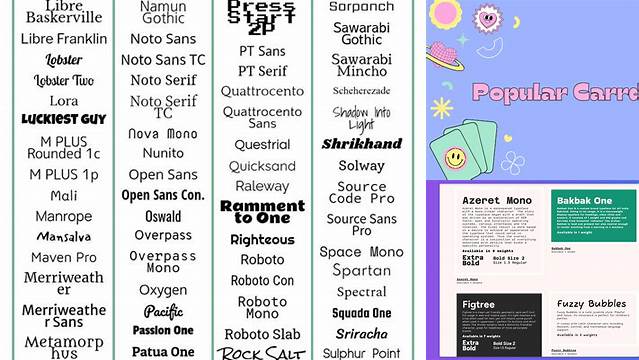
Awesome Fonts For Your Carrd Website
Hey there, web design enthusiasts! Are you looking to give your Carrd website a serious style upgrade? Then, you've come to the right place! Today, we're diving deep into the world of fonts for Carrd – the unsung heroes of web design. Choosing the right font can be the difference between a website that captivates and one that gets lost in the digital abyss. So, let's get started and explore some killer font options to make your Carrd site pop.
H2: Best Free Fonts for Carrd – A Curated List
Okay, guys, let's kick things off with some of the best free fonts you can use on your Carrd website! We all love a good deal, right? Especially when it comes to creating a stunning website without breaking the bank. When it comes to free fonts for Carrd, there are a ton of options out there, and they can be a bit overwhelming to sort through. That's why I've curated a list of my all-time favorites. These fonts are not only beautiful but also optimized for web use, meaning they'll load quickly and look great on any device. Finding the perfect fonts for Carrd doesn't have to be difficult. So let's begin.
First up, we have Roboto. It is known for its clean and modern appearance, which is a versatile sans-serif font that works well for body text, headings, and everything in between. It is easily readable, making it a great choice for websites with a lot of content. Then, there's Open Sans. This is another popular choice. Open Sans is a friendly and open-looking sans-serif font, perfect for creating a welcoming vibe. It's highly readable at various sizes, which is perfect for mobile devices. Then, let's introduce Lato. Lato is a bit more stylish than Roboto or Open Sans, with rounded corners and a touch of personality. It's still very readable, making it an excellent choice for headings and short paragraphs. Another great option is Montserrat. It's a geometric sans-serif font that is inspired by the architecture of the Montserrat neighborhood in Buenos Aires. It is a solid font to use for headers, especially. Last but not least, consider Poppins. It's a geometric sans-serif font with a touch of modern flair. It's known for its clean lines and readability. These are all great options for your website.
When you're choosing a font, it's essential to consider your brand's personality and the overall aesthetic you want to achieve. Do you want a clean, minimalist look, or something more playful and energetic? Once you know your desired style, you can narrow down your choices. Also, think about the font's legibility. No matter how beautiful a font is, it won't do you any good if your website visitors can't read it! Remember to test your font choices on different devices and screen sizes to ensure they look great everywhere.
H3: Where to Find Free Fonts for Your Carrd Site
H2: Premium Fonts for Carrd – Elevate Your Design
Alright, so you've explored some free fonts for Carrd and you are ready to take your website to the next level? Then, you might want to consider investing in premium fonts. While free fonts are great, they often have limitations. Premium fonts can offer a wider range of styles, weights, and features, allowing you to create a more unique and professional website. Premium fonts can significantly elevate your design, providing you with more options and control over your website's look and feel. But before you run off to buy some fonts, what are the best premium options? There are several popular platforms where you can purchase premium fonts. My personal favorite is Adobe Fonts (formerly Typekit). Adobe Fonts offers a vast library of high-quality fonts, including options from some of the world's top designers. The fonts are all well-designed and optimized for web use, ensuring your website looks great on any device. You can also filter fonts by various criteria, such as style, weight, and language, so it's easy to find the perfect fonts for your needs.
H3: How to Choose the Right Premium Font for Your Carrd Site
Now, let's explore how to choose the right premium fonts for Carrd. Consider the following: First, your brand's identity. What is the personality of your brand? Is it serious and professional, or fun and playful? Choose a font that reflects your brand's identity. Second, your website's purpose. What is the main goal of your website? Are you selling products, sharing information, or building a community? Choose a font that complements your website's purpose. Third, your target audience. Who are you trying to reach with your website? Choose a font that appeals to your target audience. Next, the font's readability. This is critical, especially for body text. Choose a font that is easy to read at different sizes and on different devices. Make sure the font has enough weights and styles. The wider the range of weights and styles, the more flexibility you have. For instance, does it offer the italic, bold, and different weights you may need for headers and body text? Then, make sure the font complements your other design elements. Your font should work well with your website's colors, images, and layout.
H2: Carrd Font Pairing – Perfect Combinations
So, you have explored the fonts for Carrd and are ready to use them. But how do you combine them for the best results? Using different fonts on your Carrd website can add visual interest and personality. However, using too many fonts can make your website look cluttered and unprofessional. Finding the perfect fonts for Carrd pairing can be a bit tricky. That's why I want to share some of my favorite font pairings.
One of the most popular pairings is Roboto and Open Sans. This is a classic combination that works well for any type of website. The Roboto is a versatile sans-serif font that is ideal for body text. Open Sans, on the other hand, is a friendly and open-looking sans-serif font that works well for headings. Another great combination is Lato and Montserrat. Lato is a stylish sans-serif font with a touch of personality that works well for headers and short paragraphs. Then, use Montserrat, which is a geometric sans-serif font, for headings. It is a clean and modern combination that is perfect for a wide range of websites. Then, we have Poppins and Playfair Display. Poppins is a geometric sans-serif font. It is a perfect choice for headers. Playfair Display is a high-contrast serif font that works well for headings. It is a stylish and elegant combination that can add a touch of sophistication to your website. One important aspect is to choose fonts that have the same x-height, which is the height of the lowercase 'x'. This will help ensure that your fonts look visually balanced when paired together.
One of the most common ways to customize your fonts for Carrd is through CSS. CSS, or Cascading Style Sheets, is a coding language that allows you to control the appearance of your website. It's the go-to way to apply advanced font styles. You can use CSS to change font sizes, colors, weights, and even add special effects like text shadows. While Carrd has limited direct CSS integration, you can add custom CSS through the